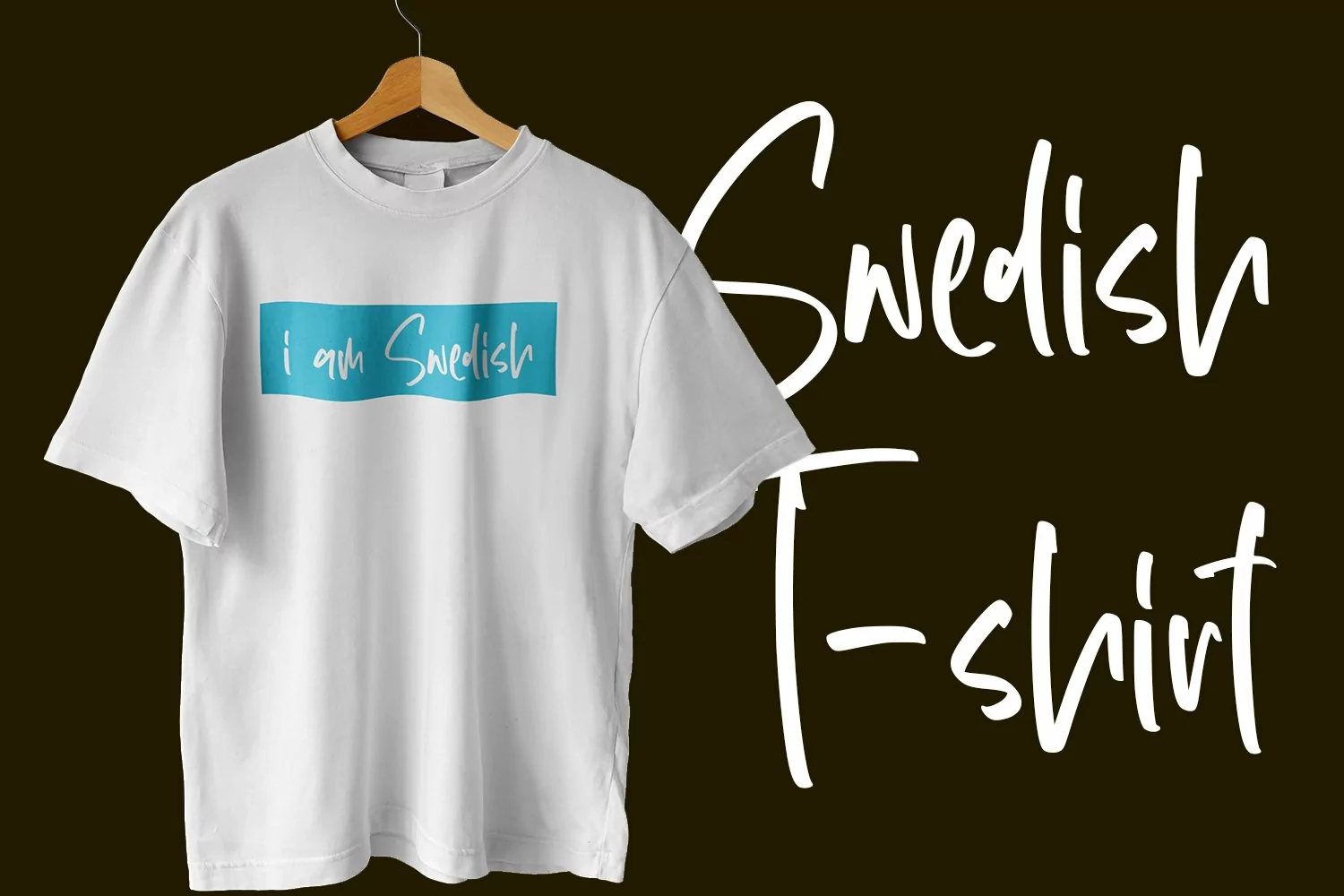
Hello Gothenburg - Cool Handletter Font that contain lowercase, uppercase, symbol, and also support multi language. There’s a lot ligatures in this font. This Font also comes with ligatures, alternates and many more. this font suitable for fashion, branding, catalog and other design what you want.
Hello Gothenburg